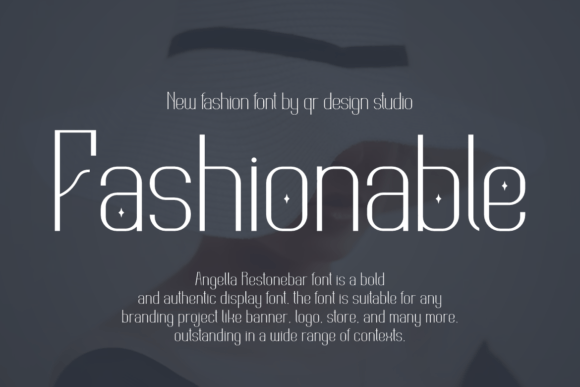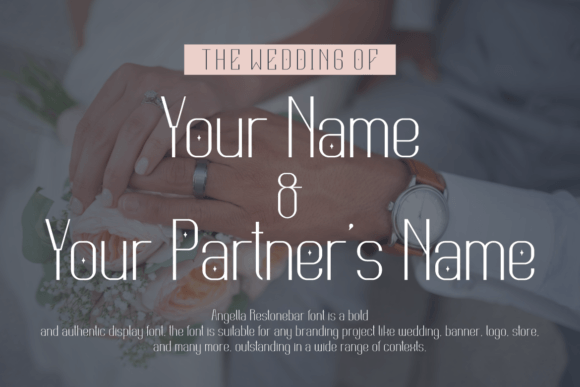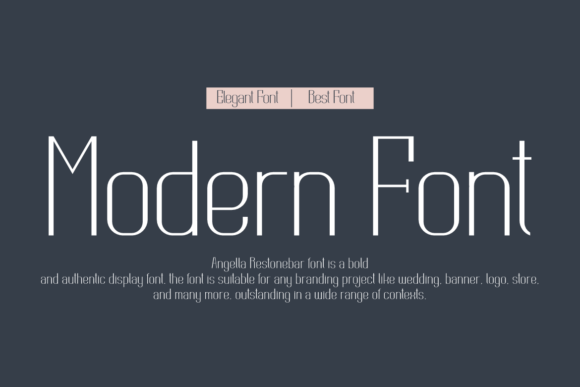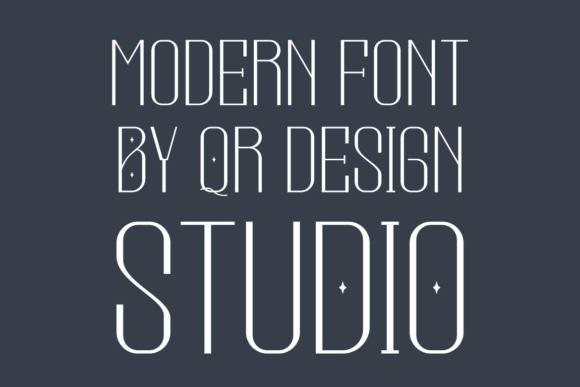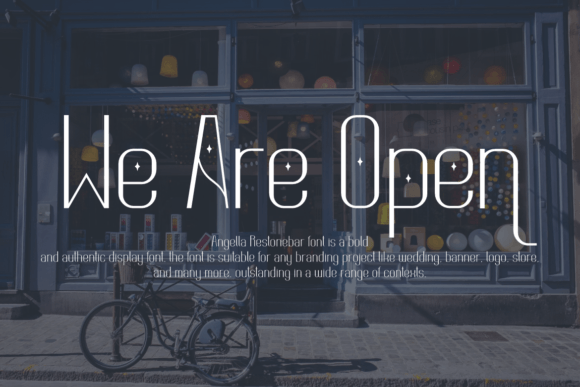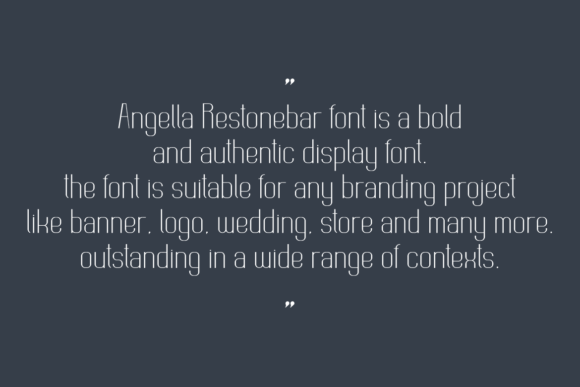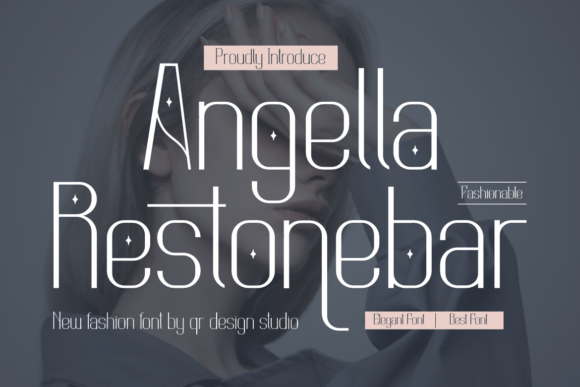
Introducing Angella Restonebar Font: The Ultimate Display Font for Creative Projects
Are you tired of using the same old fonts for your design projects? Look no further! Angella Restonebar Font is an authentic display font that is sure to take your designs to the next level. This versatile font is perfect for a wide range of applications, from headlines and titles to advertising, branding, and editorial designs.
What Makes Angella Restonebar Font So Special?
Angella Restonebar Font is a display font created primarily for use in headlines, titles, and other short text. Its unique design makes it look amazing on any screen size, and its clear and legible style ensures that it is easy to read even in smaller text sizes. This font is perfect for designers and crafters who want to add a fun and friendly touch to their projects.
Angella Restonebar Font is an incredibly versatile font that can be used for a wide range of design applications. Some of the most popular uses for this font include:
- Advertising: Use Angella Restonebar Font to create eye-catching headlines and titles that grab attention and draw in customers.
- Vintage Mood Boards: Add a touch of nostalgia to your designs with this font’s vintage-inspired style.
- Branding: Use Angella Restonebar Font to create unique and memorable logos and brand identities.
- Logotypes: This font is perfect for creating custom logotypes that are both stylish and easy to read.
- Packaging: Use Angella Restonebar Font to create eye-catching packaging designs that stand out on store shelves.
- Titles and Editorial Designs: This font is perfect for use in titles, headings, and other editorial designs.
- Modern and Vintage Designs: Angella Restonebar Font’s unique style makes it perfect for use in both modern and vintage-inspired designs.
Why Choose Angella Restonebar Font?
So why should you choose Angella Restonebar Font for your design projects? Here are just a few reasons:
- Unique Style: Angella Restonebar Font has a unique and stylish design that is sure to make your projects stand out.
- Versatility: This font can be used for a wide range of design applications, from advertising to editorial designs.
- Easy to Read: Despite its stylish design, Angella Restonebar Font is easy to read even in smaller text sizes.
- Fun and Friendly: This font adds a fun and friendly touch to any project, making it perfect for designers who want to create engaging and approachable designs.
Tips for Using Angella Restonebar Font
Here are a few tips for getting the most out of Angella Restonebar Font:
- Use it as a Headline Font: Angella Restonebar Font is perfect for use as a headline font, so try using it to create eye-catching titles and headings.
- Experiment with Different Sizes: This font looks great in a wide range of sizes, so don’t be afraid to experiment and find the perfect size for your project.
- Pair it with Other Fonts: Angella Restonebar Font pairs well with a wide range of other fonts, so try experimenting with different font combinations to find the perfect look for your project.